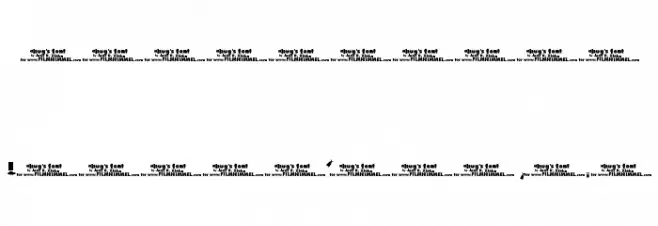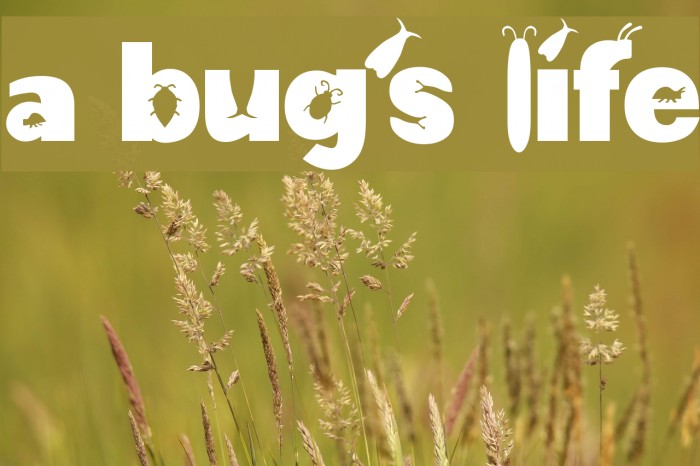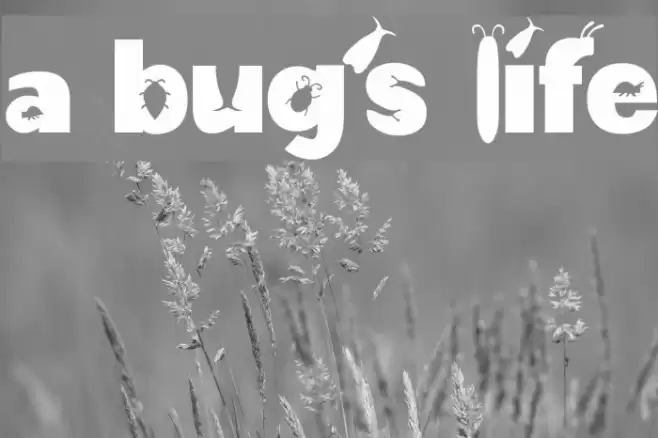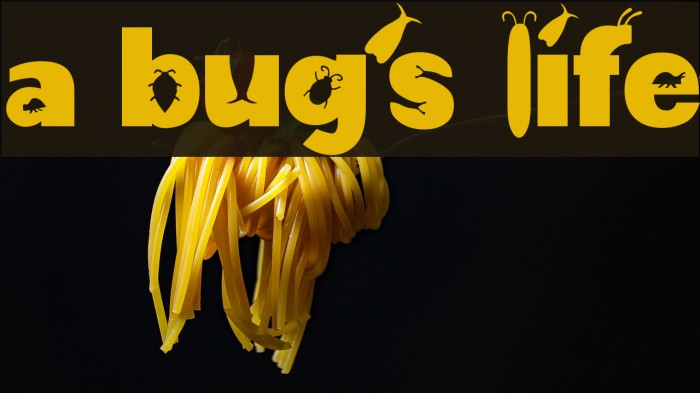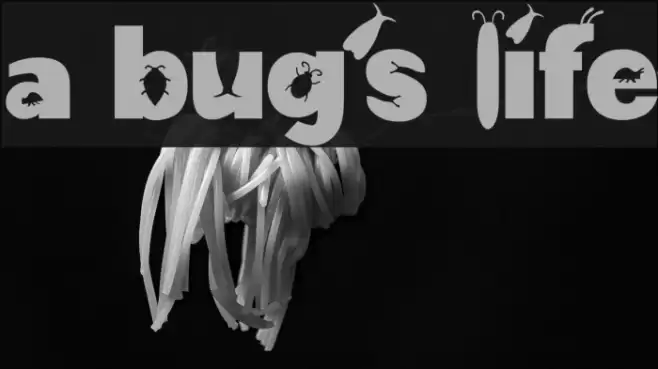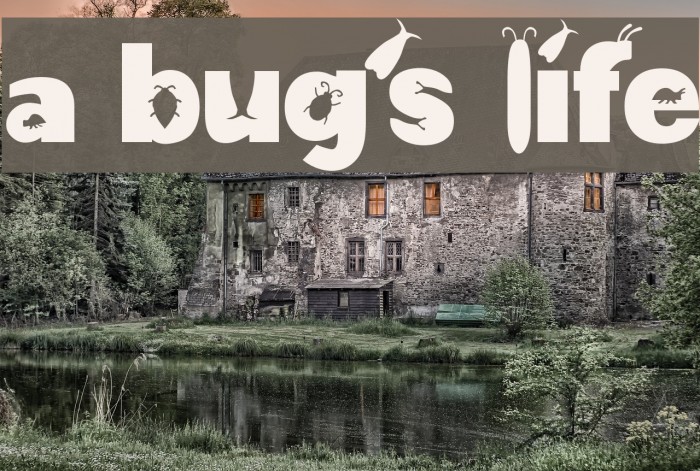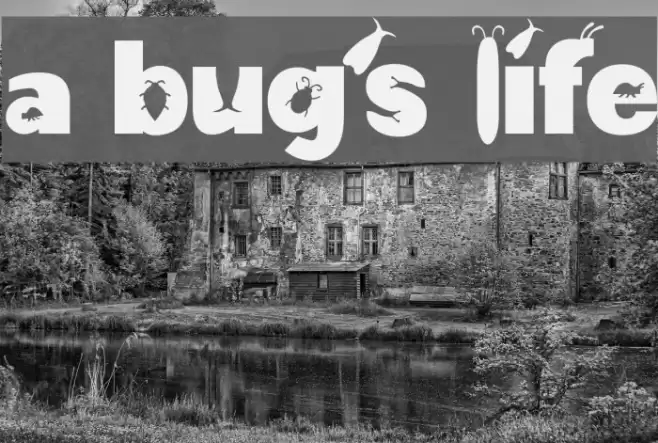
a bug's life Font
a bug's life Description
This playful and whimsical font features bold, rounded characters with unique insect-like elements integrated into the design. Each letter is adorned with small bug illustrations, adding a quirky and fun touch. The uppercase letters are solid and strong, while the lowercase letters incorporate more playful elements, such as antennae and legs, giving the font a lively and animated feel. The overall design is eye-catching and perfect for projects that require a sense of humor and creativity.
| Use Case | Logos, Posters, Children's materials |
| Proposed Projects | Ideal for children's books, playful branding, themed party invitations, and educational materials. |